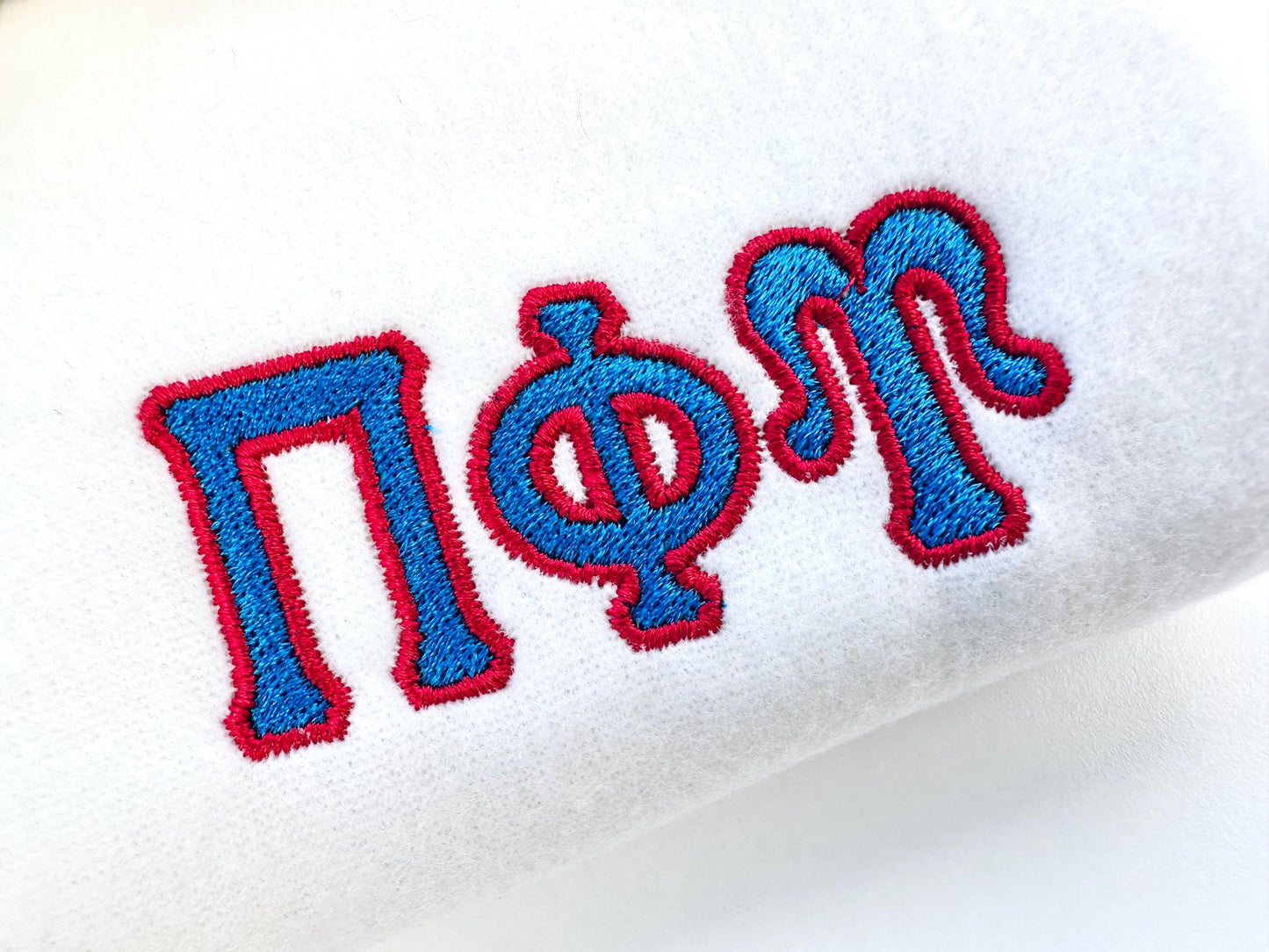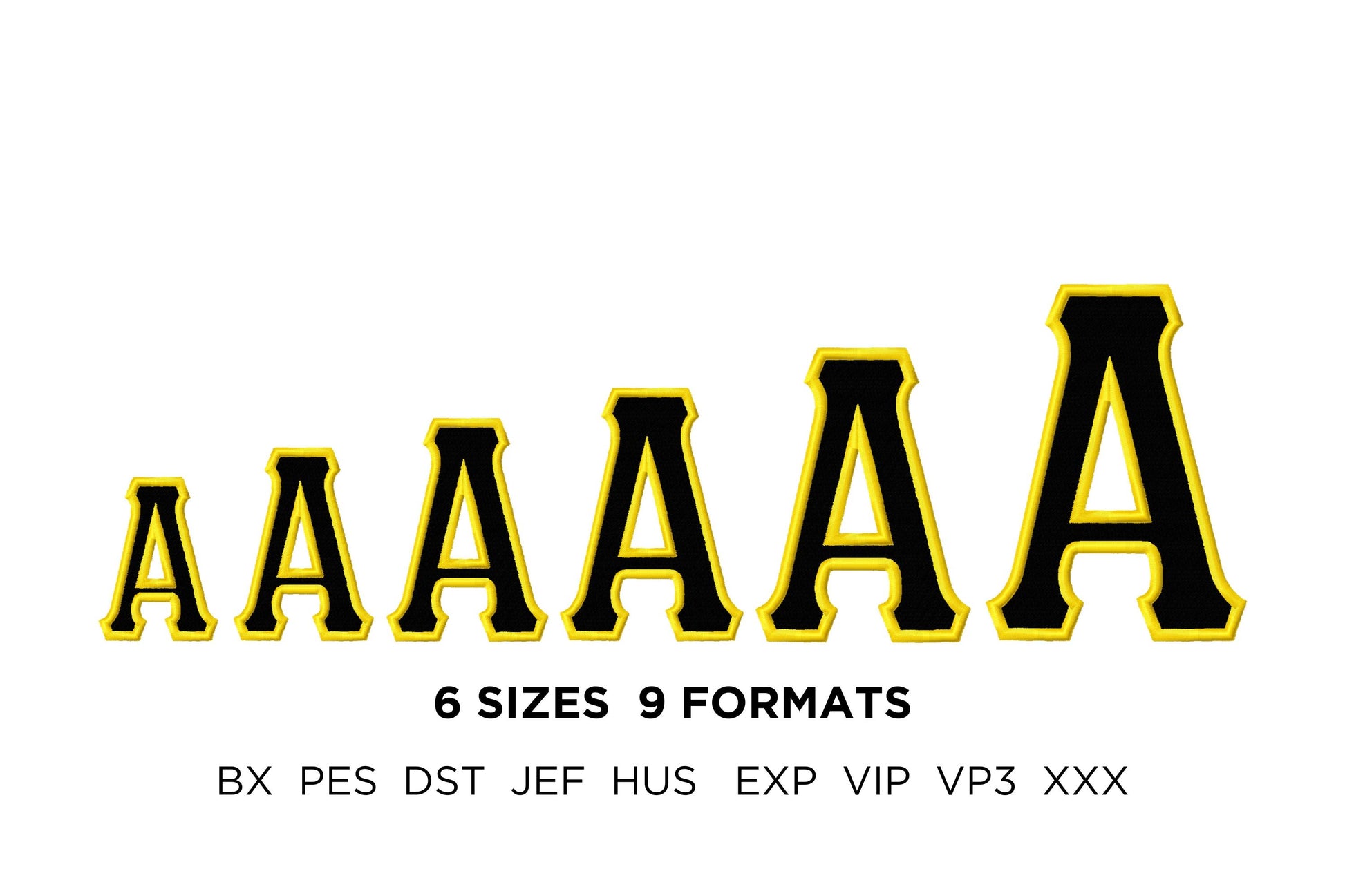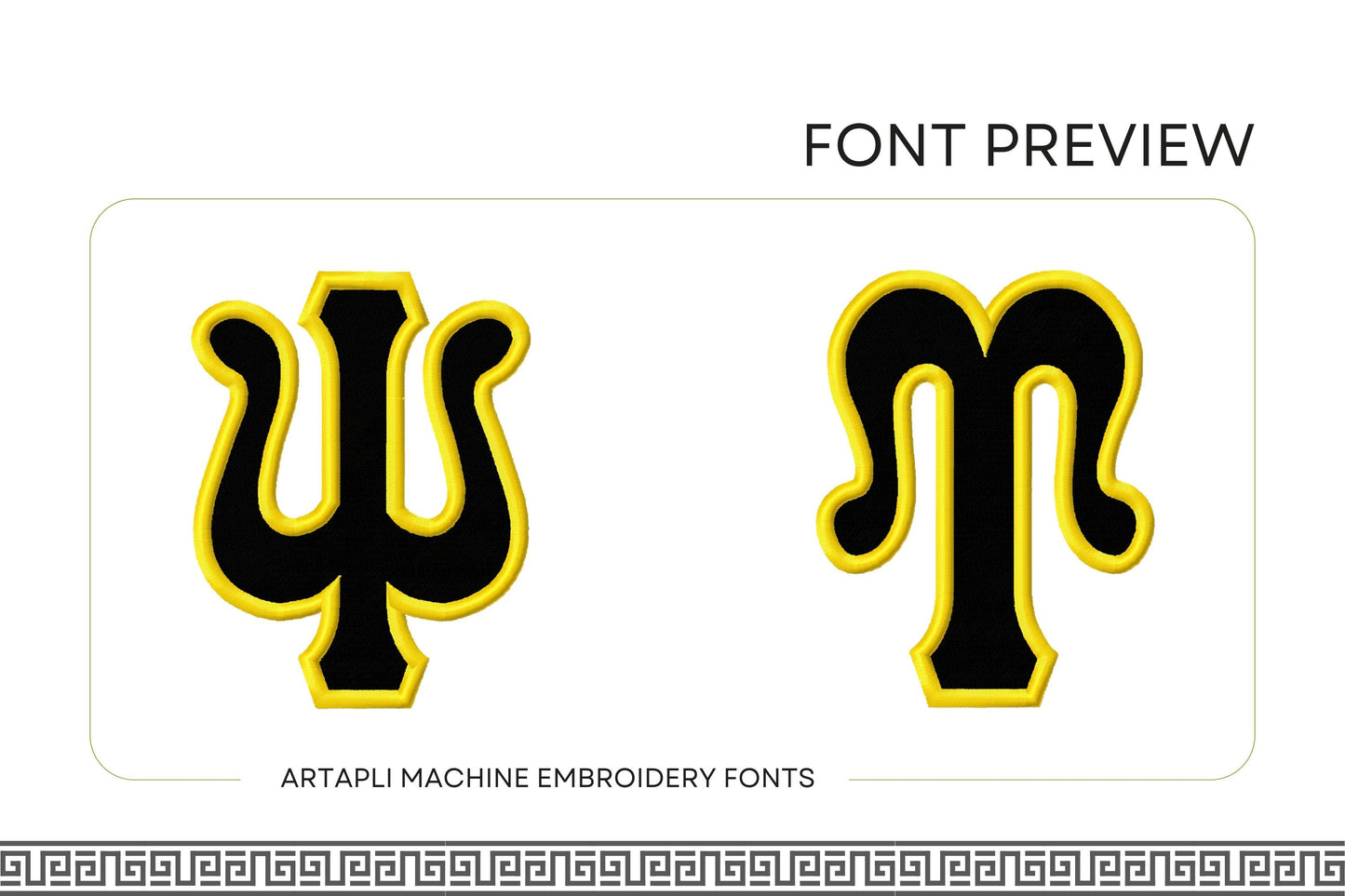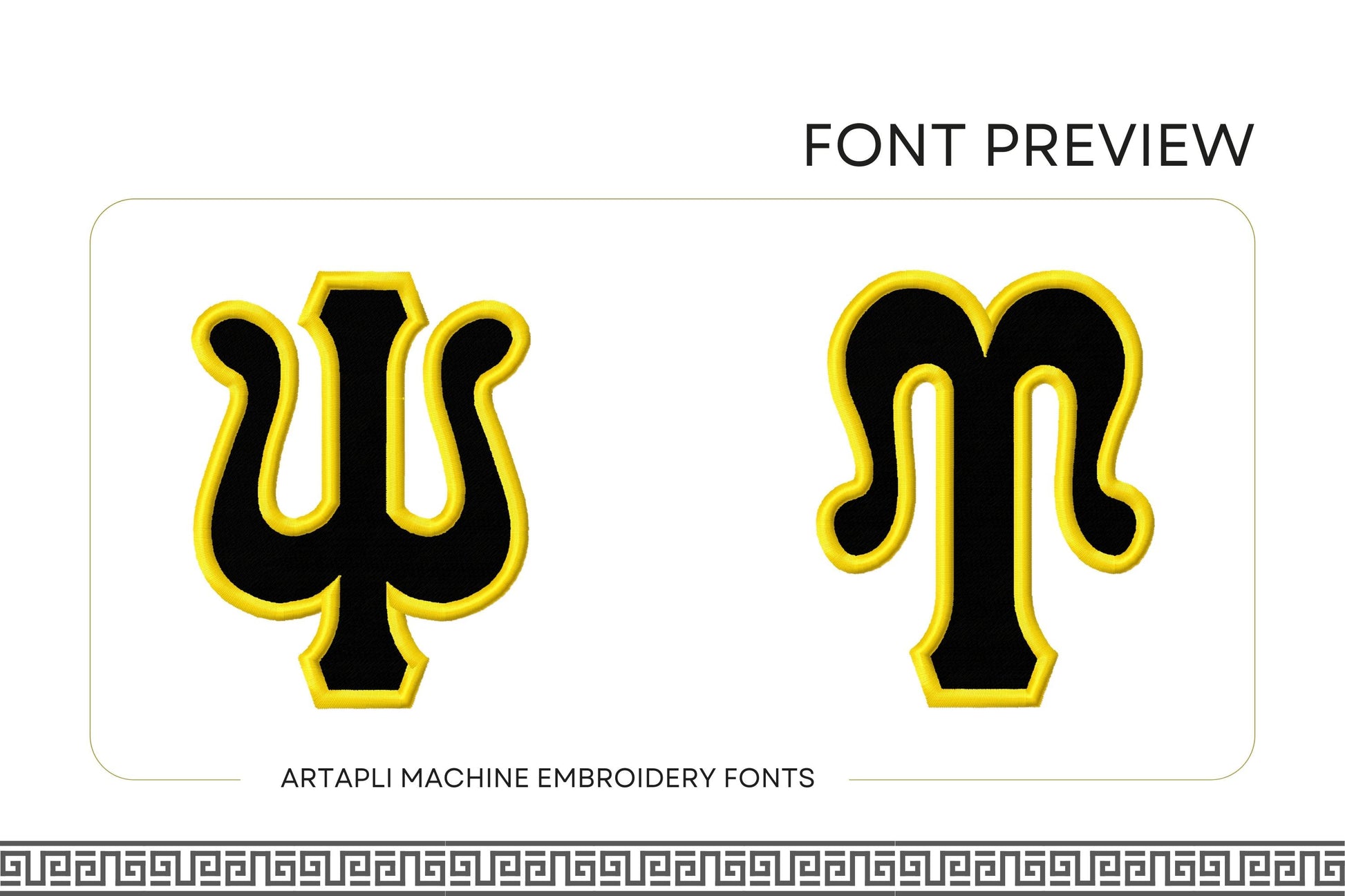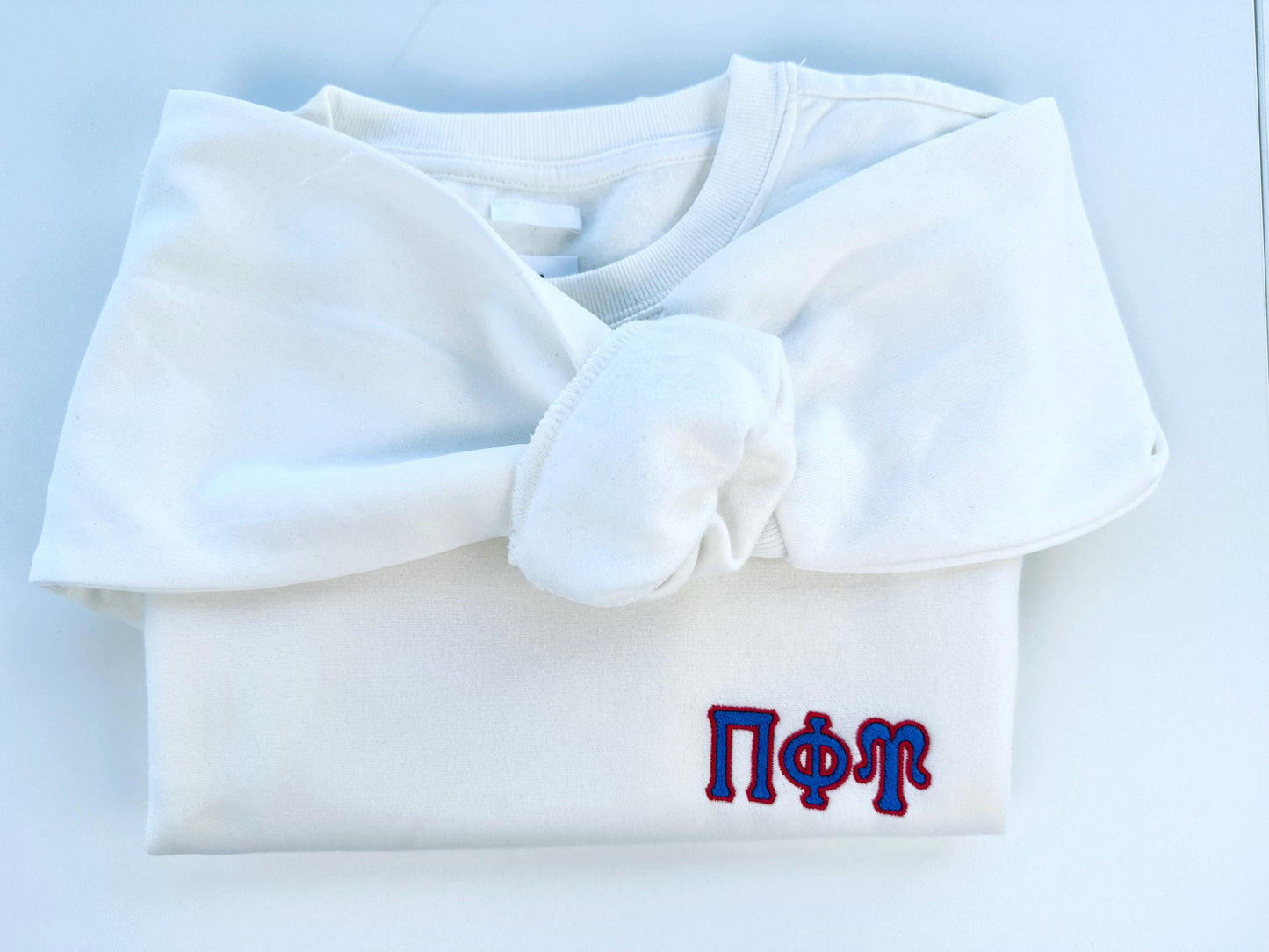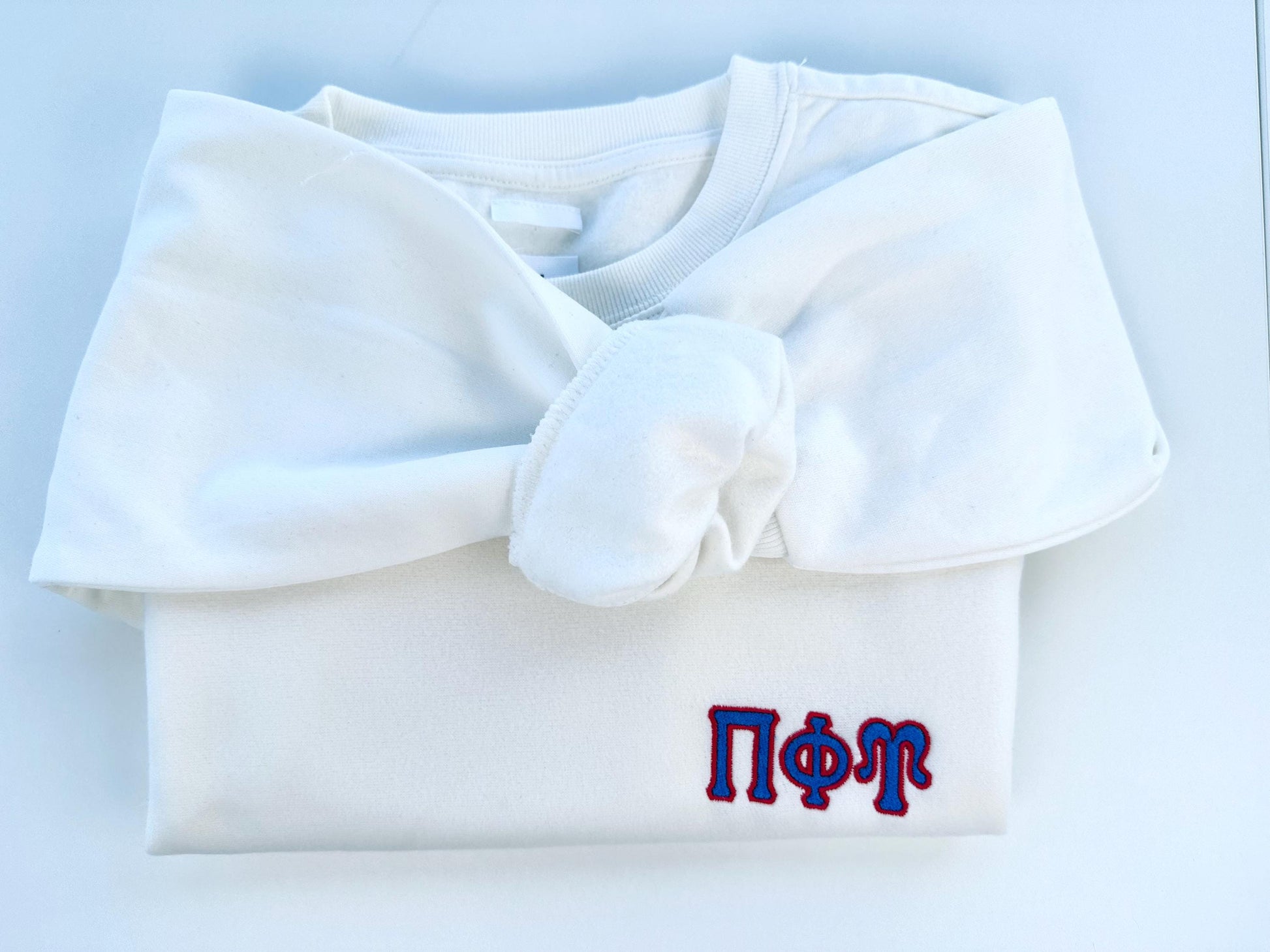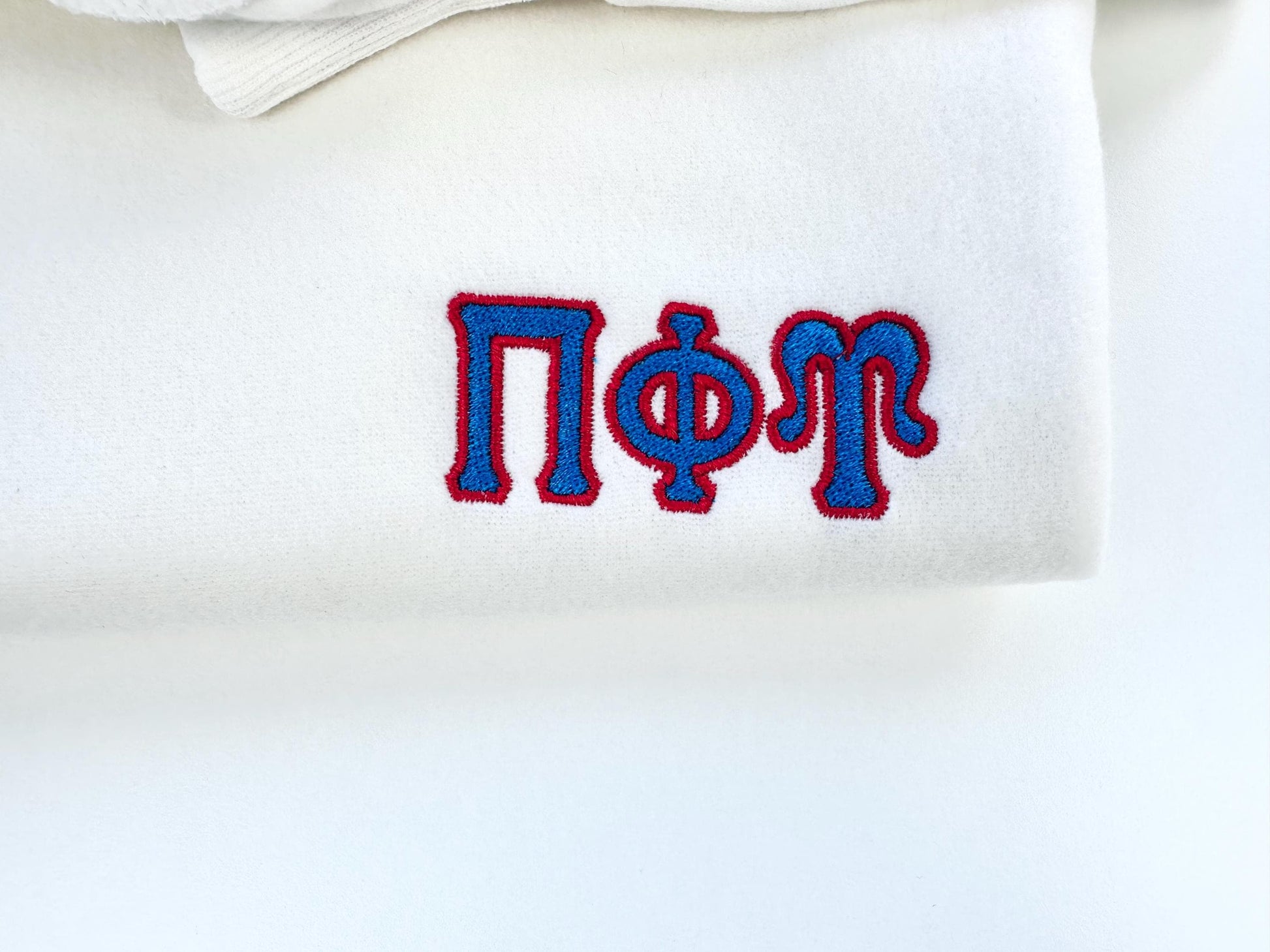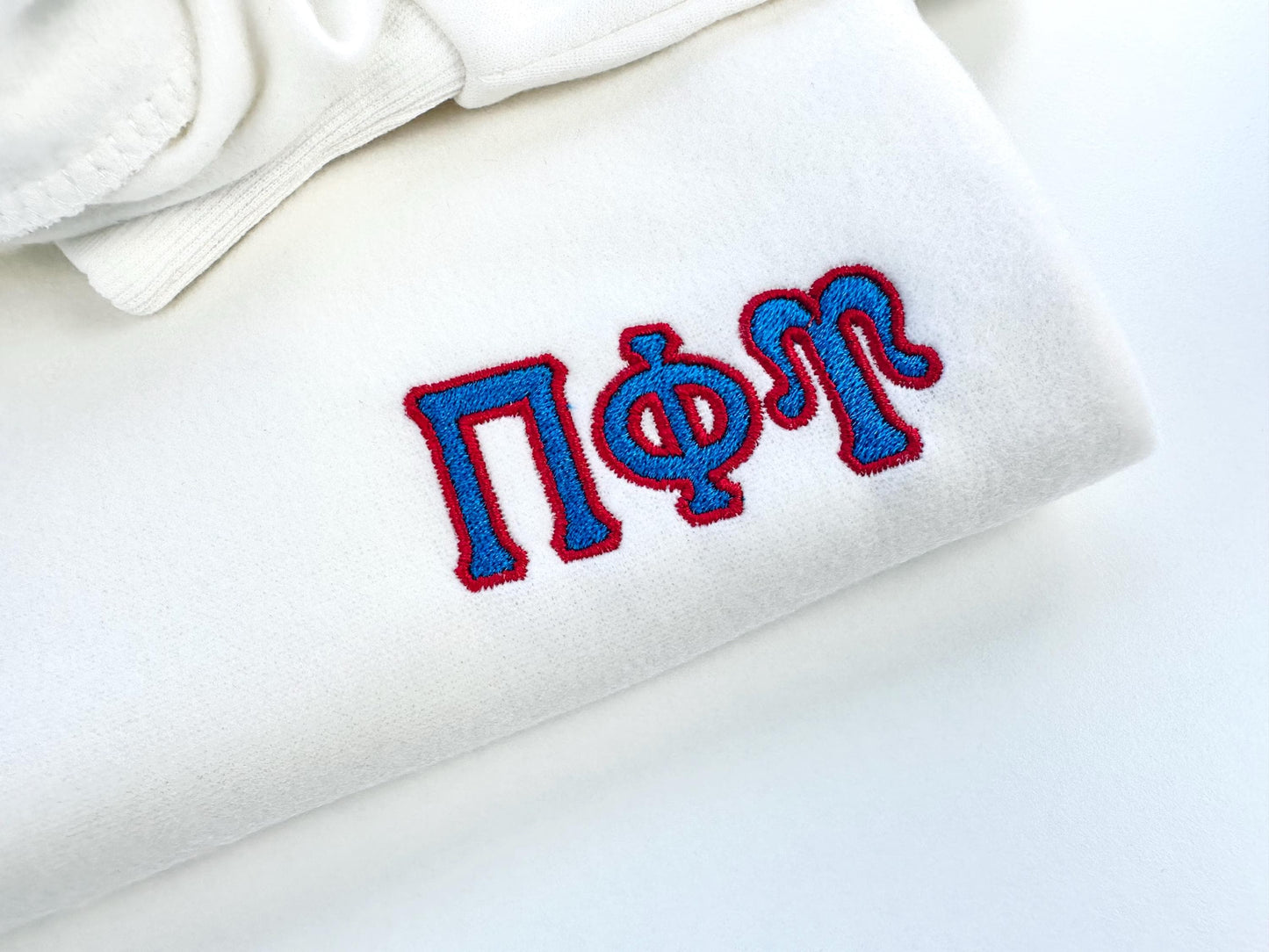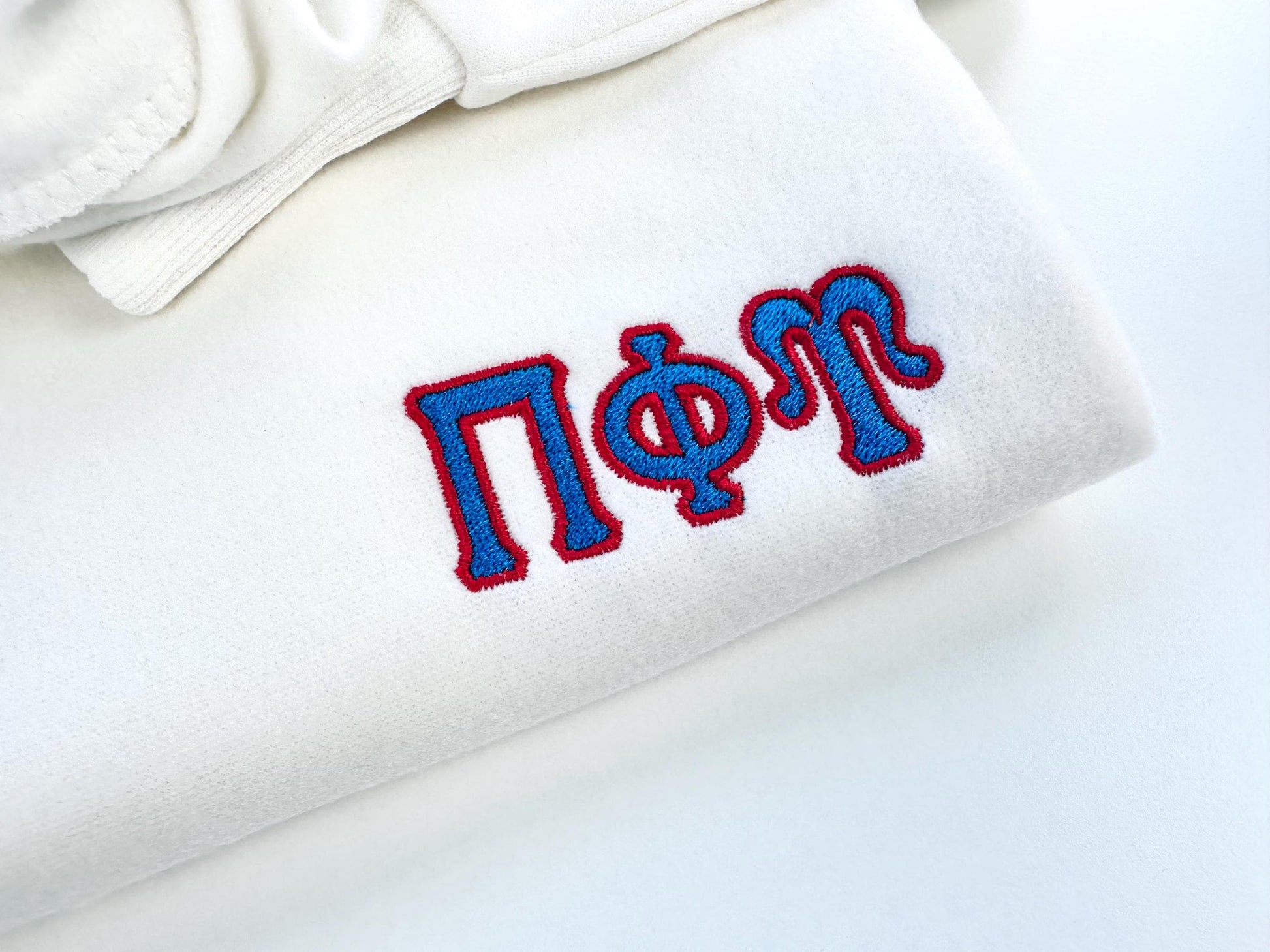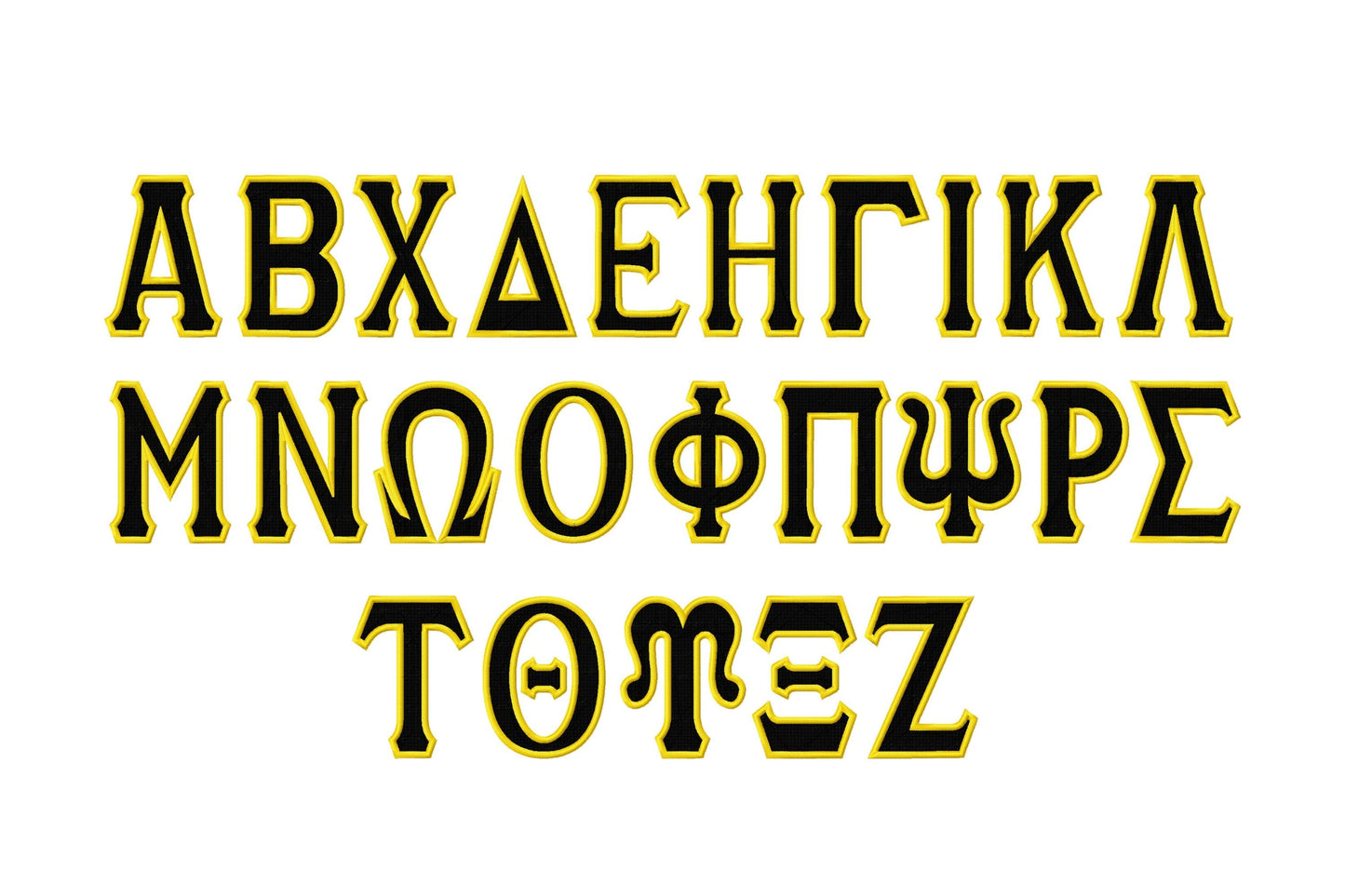
Fill Stitch and Outline Tall Greek Font
All 24 Greek letters, filled and finished with a second-color outline, in six sizes: 2.2, 2.5, 3, 3.3, 3.8 and 4.7 inches.
- 24 tall Greek letters, fill stitch with outline
- 6 sizes, 2.2 to 4.7 in